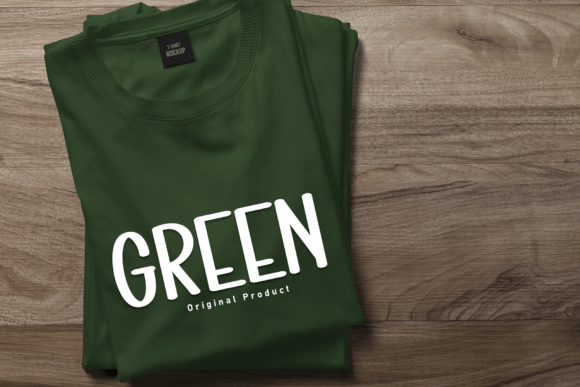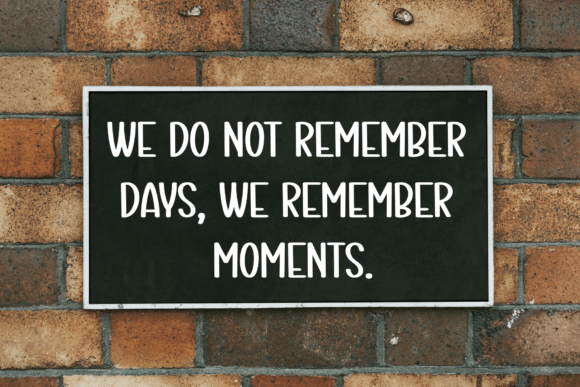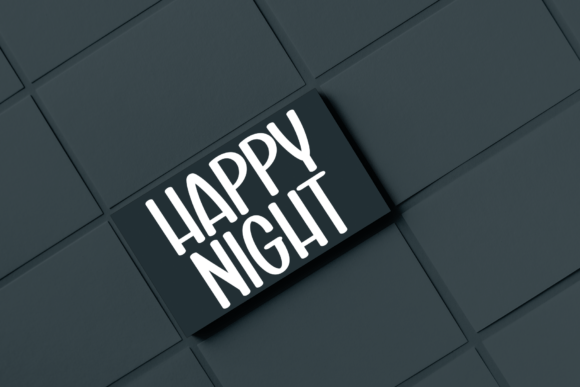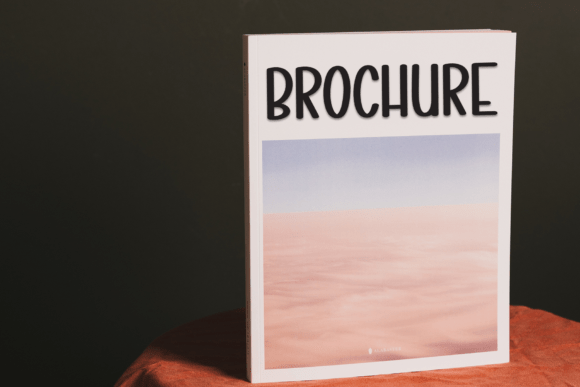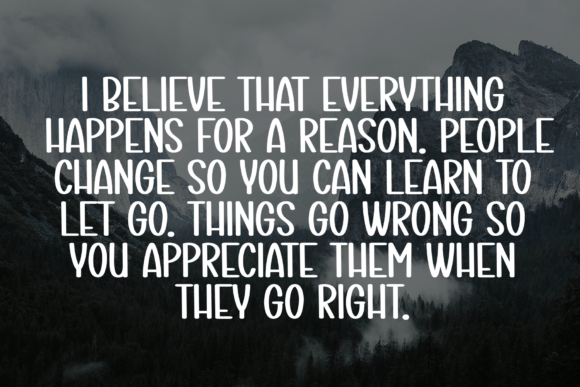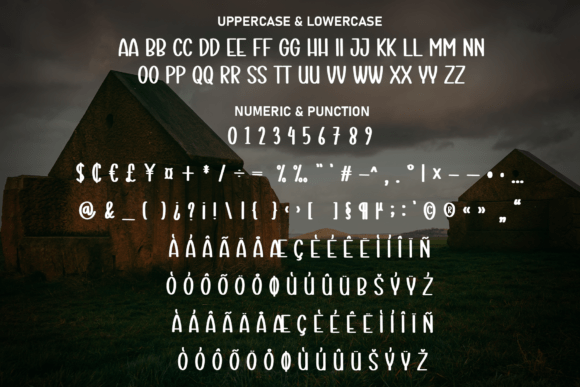
The Charm of Farmhouse Font: A Designer’s New Best Friend
I’ll never forget the time I was working on a branding project for a cozy bed and breakfast. I had all the elements in place – the warm color palette, the rustic textures, and the inviting imagery. But something was missing. That’s when I realized I needed the perfect font to tie everything together. After hours of scrolling through font libraries, I stumbled upon Farmhouse Font. It was love at first sight! 💕
This display handwritten font brings a natural, friendly feel to your designs with its casual strokes and expressive charm. Bold enough to stand out but still warm and approachable, it’s perfect for quotes, social media graphics, product packaging, logos, and creative branding. It’s like handwriting with personality — fun, stylish, and full of character.
What I Love About Farmhouse Font ✨
- ✅ Unique Character: Each letter has a distinct personality, making your designs feel handcrafted.
- ✅ Versatility: Works beautifully for both digital and print projects.
- ✅ Easy to Read: Despite its casual vibe, the font remains highly legible.
- ✅ OpenType Features: Includes stylistic alternates and glyphs for added creativity.
- ⚠️ Limited Formality: Not suitable for very formal or corporate projects.
- ⚠️ Overuse: Can feel repetitive if used excessively; mix with other fonts for variety.
The Story Behind Farmhouse Font
Farmhouse Font was inspired by traditional handwriting found in rustic farmhouses across the countryside. The designer aimed to capture the warmth and friendliness of these handwritten notes, infusing each letter with a sense of personality and charm. The result is a font that feels both nostalgic and refreshingly modern.
Q: Is Farmhouse Font suitable for body text?
A: While Farmhouse Font is beautiful, it’s best used for headings and short paragraphs due to its casual and expressive nature. For longer body text, a more traditional font might be more readable.
Q: Does Farmhouse Font include OpenType features?
A: Yes, Farmhouse Font includes OpenType features such as stylistic alternates and glyphs, allowing for a high level of customization and creativity.
Q: Is Farmhouse Font easy to read on digital screens?
A: Absolutely! Farmhouse Font strikes a great balance between style and legibility, making it suitable for both print and digital projects.